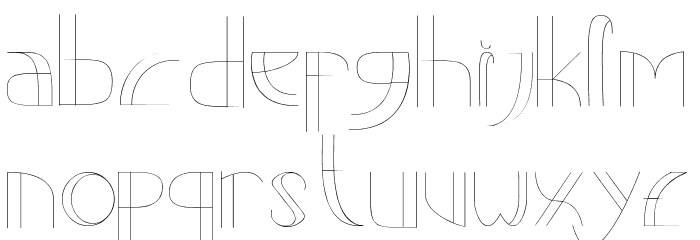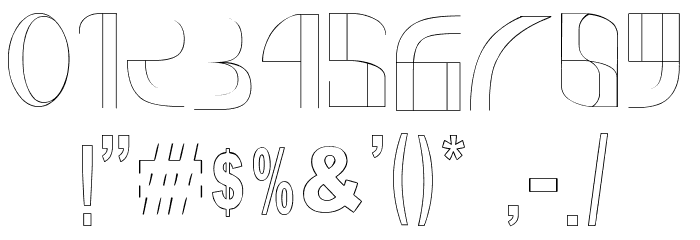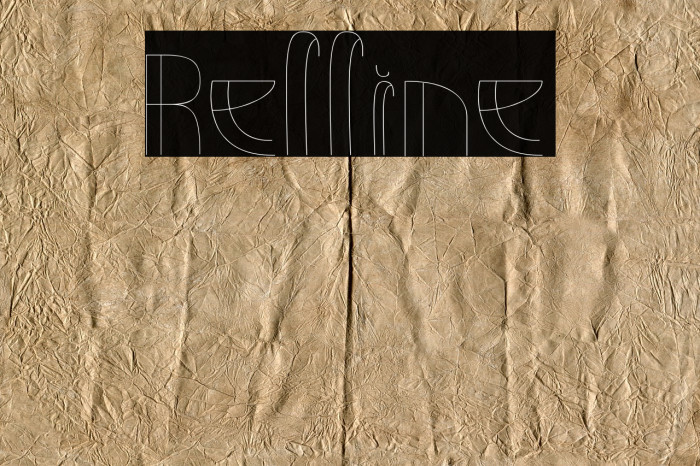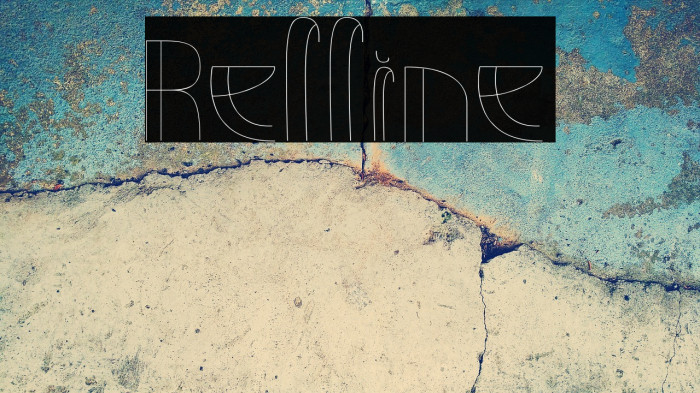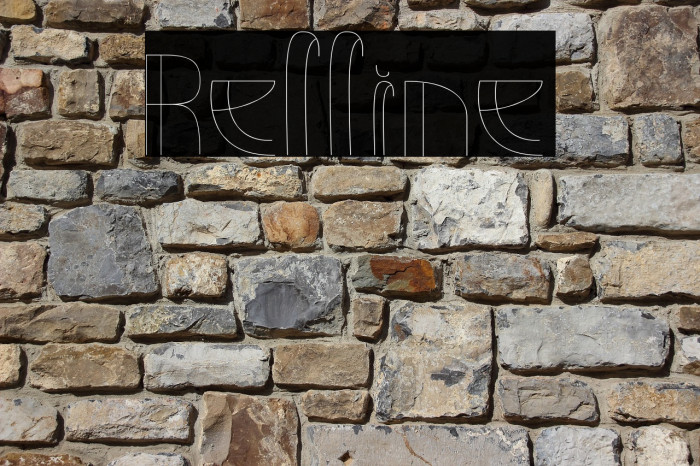
Relline Font
This font features a modern and minimalist design with a geometric structure. The characters are composed of thin, clean lines with a consistent stroke width, creating a sleek and sophisticated appearance. The uppercase letters exhibit a unique blend of curves and straight edges, while the lowercase letters maintain a similar aesthetic with slightly more rounded forms. The numerals are distinct and align well with the overall style, offering a futuristic feel. Special characters are designed to complement the alphabet, maintaining the font's cohesive look. This font's simplicity and elegance make it suitable for contemporary design projects.
A modern, geometric font with thin lines and a minimalist style.
- Proposed Projects: Ideal for branding, tech-related designs, modern art projects, and minimalist posters.